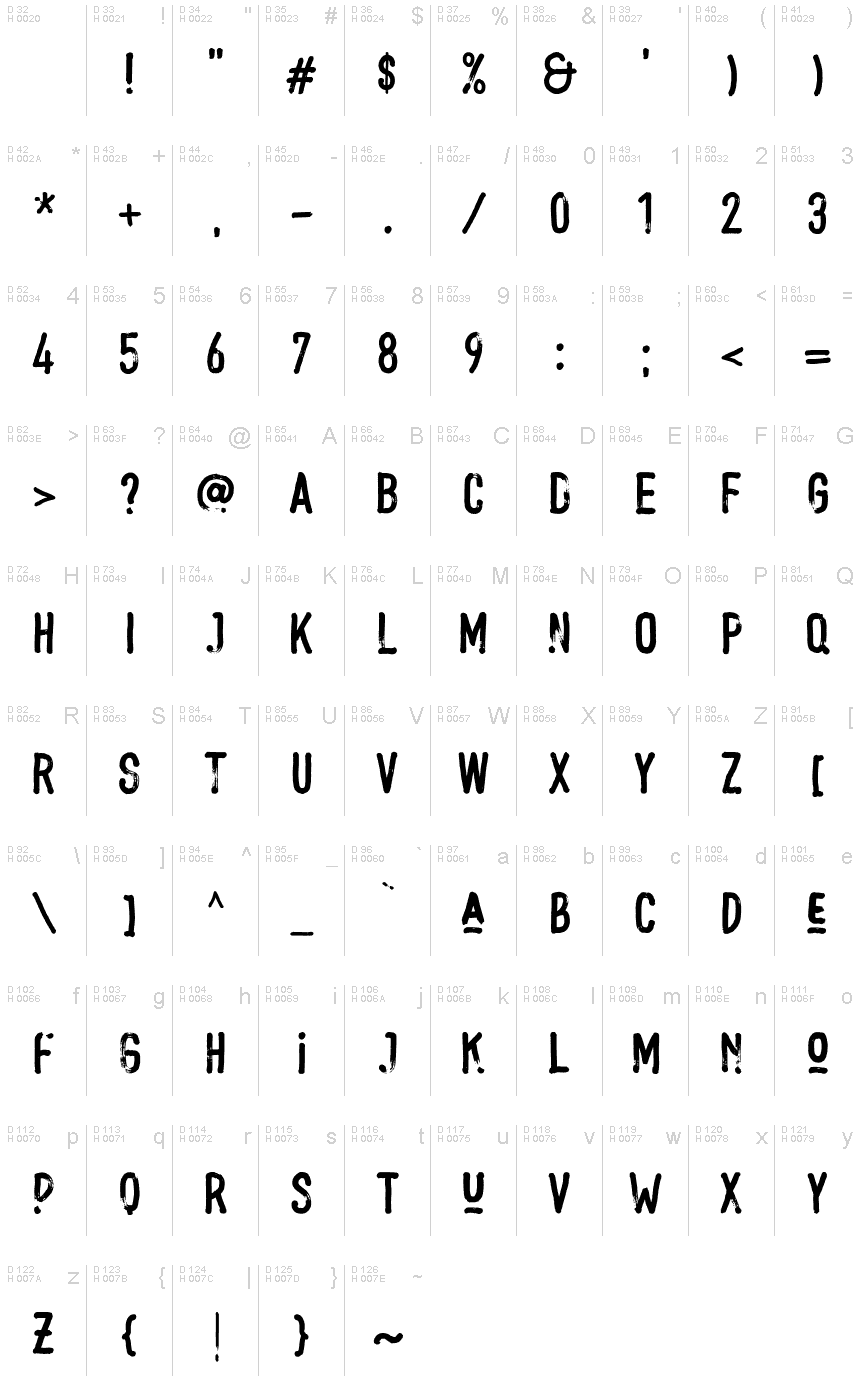
Blowsters, a narrow display font designed by Letterhend Studio, is an erosion-style typeface with a unique and creative flair. Perfect for eye-catching headlines or logos, Blowsters can add an artistic touch to any project.